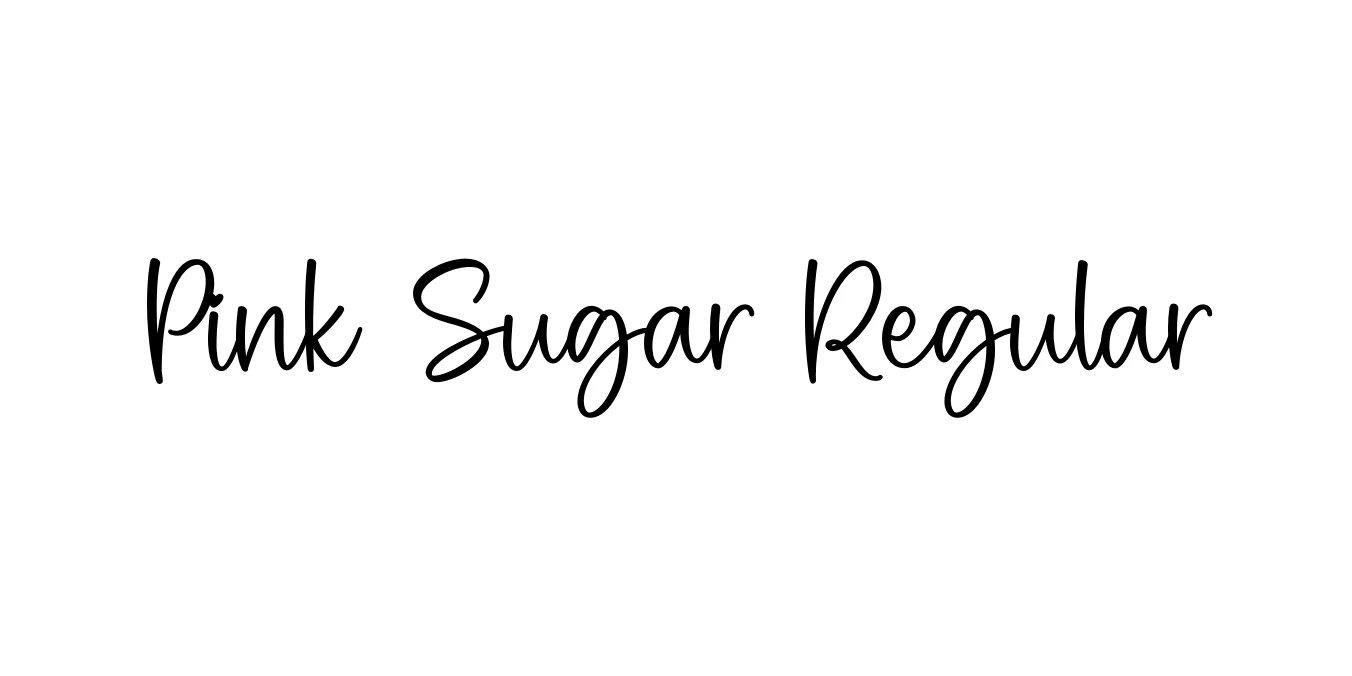
Pink Sugar Regular
Designed by Sronstudio
Pink Sugar Regular is a vibrant and playful script font that captures the essence of modern calligraphy with a touch of whimsy. Designed by Sronstudio, it features fluid strokes and organic curves that mimic natural handwriting, making it a popular choice for designers seeking to add a personalized, feminine touch to their projects. The font maintains a high level of legibility while offering a hand-drawn authenticity that is often missing from more rigid typefaces.
The font is widely utilized in branding for lifestyle products, social media graphics, and boutique stationery. Whether applied to wedding invitations or digital marketing materials, its cheerful aesthetic provides a welcoming and approachable feel to any visual composition. Its versatile character set includes smooth ligatures that help creators achieve a seamless, custom-lettered look without the need for manual adjustment.
Pink Sugar Regular Best Uses
Perfect for romantic and elegant invitation cards and RSVP notes.
Ideal for eye-catching Instagram posts, story overlays, and Pinterest pins.
Great for logos in the beauty, fashion, and lifestyle industries.
Suitable for apparel, mugs, and personalized gift products.
Pink Sugar Regular Glyphs